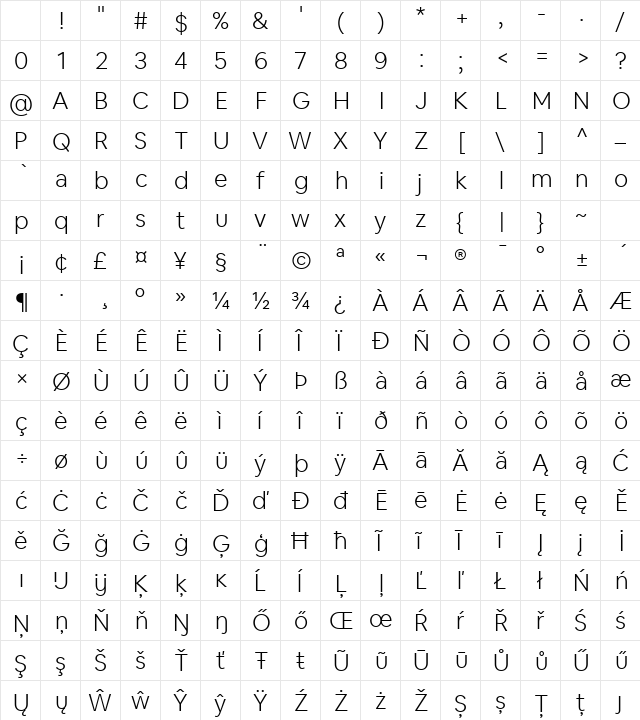
Complete Airbnb Cereal App Light Regular glyph index. Displaying only characters natively supported by Airbnb Cereal App Light Regular font.
Airbnb Cereal App Light is a composed and adaptable typeface that performs quietly and consistently across a wide range of design contexts. Its slender proportions lend an understated elegance to any composition.